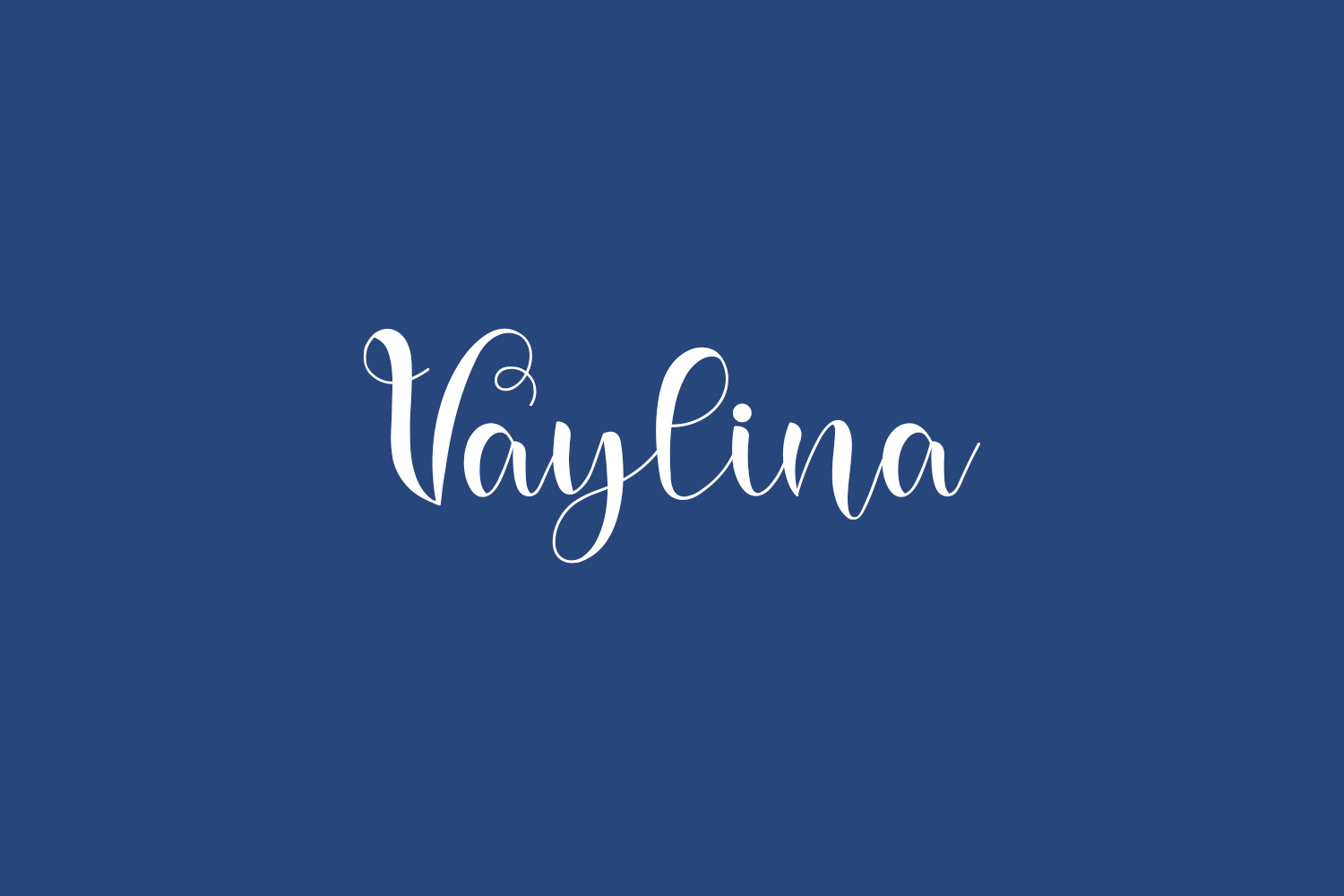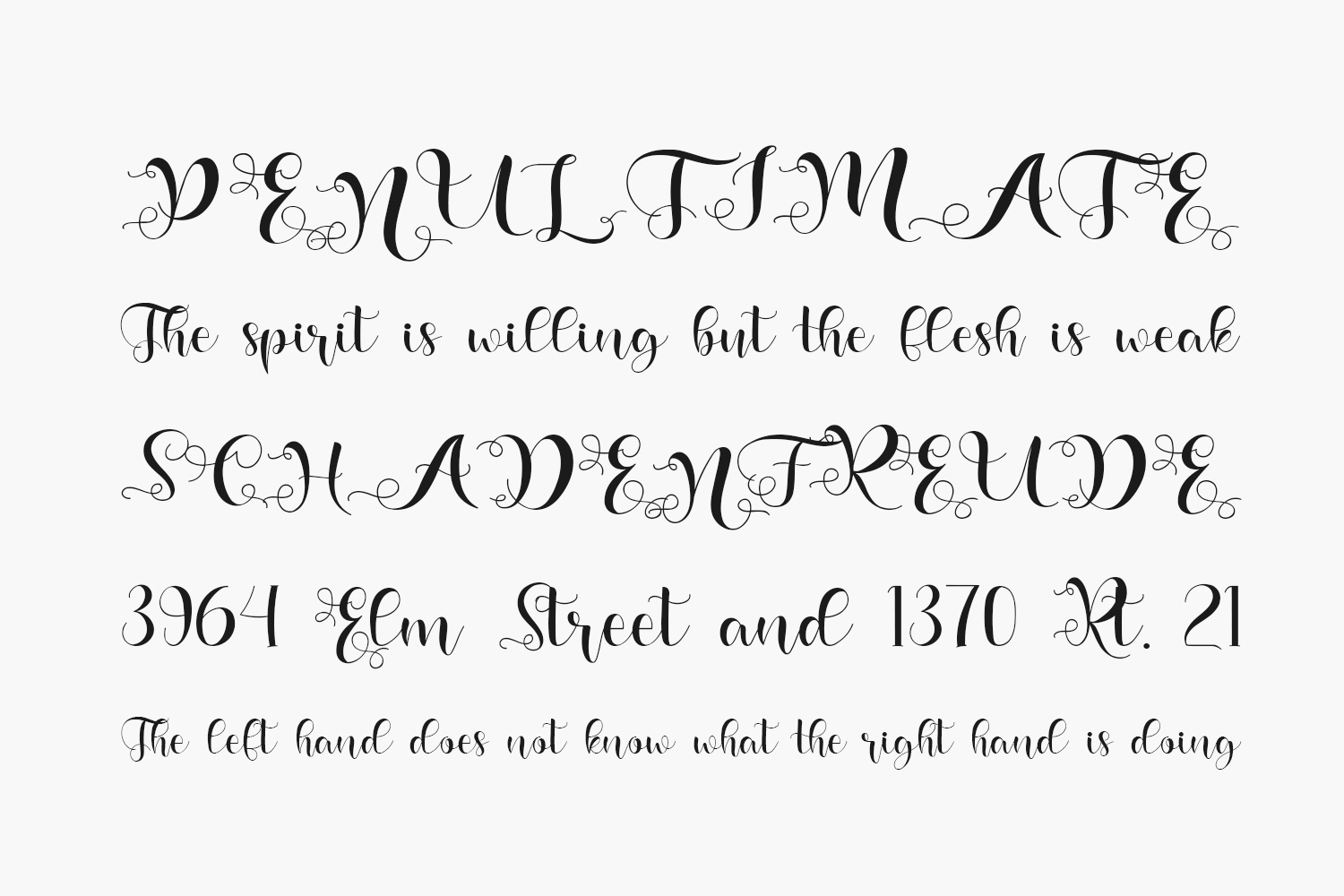
Vaylina Free Font is a romantic and sweet calligraphy typeface with characters that dance along the baseline. This font is PUA encoded which means you can access all of the glyphs and swashes with ease. Fall in love with its incredibly versatile style and use it to create spectacular designs. Vaylina Free Font was designed by Von Niyos and is free for personal use only. Please purchase the full version for commercial use.